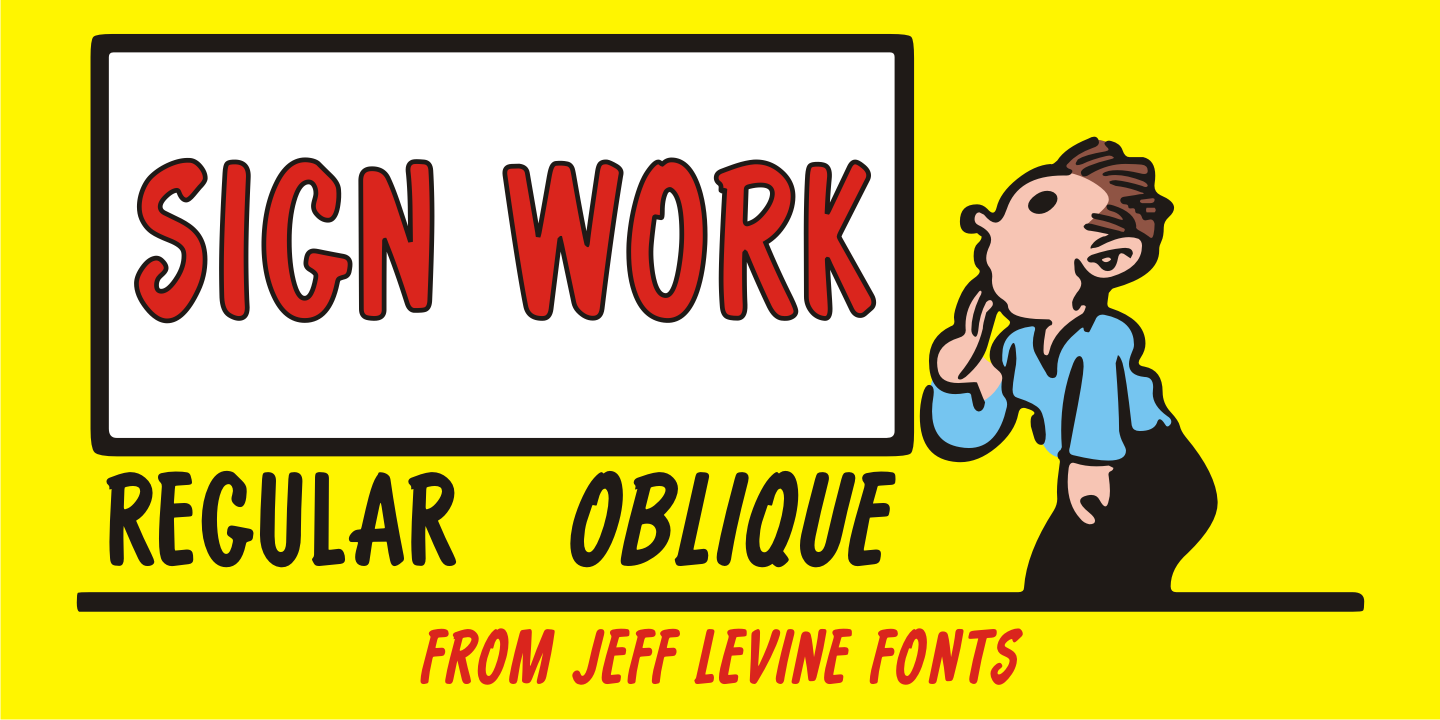
Sign Work JNL Font is ideal for traditional sign painting projects, vintage storefront signage, classic barbershop graphics, old-fashioned diner branding, retro automotive shop signs, heritage business identities, hand-painted billboard reproductions, nostalgic Main Street designs, authentic Americana graphics, and traditional craftsmanship celebrations. This authentic typeface excels in applications where honest sign painting tradition and skilled craftsmanship need to be communicated with genuine artisan character and time-honored reliability that honors the golden age of hand-lettered commercial signage.
What makes Sign Work JNL Font exciting is its extraordinary ability to capture the essence of traditional sign painting through its carefully crafted letterforms that preserve the subtle variations and honest imperfections that make hand-painted signs so charming and authentic. The font embodies the spirit of skilled craftsmanship and commercial artistry with its sturdy construction and workmanlike proportions that reflect the steady hand and practiced eye of master sign painters. Its authentically varied character details and artisan personality create an atmosphere of genuine craftsmanship that resonates with business owners and design enthusiasts who value traditional skills and honest workmanship.
The Sign Work JNL Font family typically includes Regular and Bold weights, each maintaining the signature hand-painted characteristics and authentic craftsmanship appeal. Some versions offer brush-style variants that enhance the painted aesthetic, distressed treatments that simulate weathered signage, and alternative character sets that provide realistic hand-lettering variations. The family may also include decorative elements, traditional sign painter's flourishes, and specialized commercial symbols designed for authentic business signage applications.
Whether you're creating traditional business identities, heritage signage systems, or authentic Americana designs, Sign Work JNL Font Free Download delivers the perfect artisan authenticity your craft-focused projects deserve. Its sign painting character and traditional styling make it an invaluable tool for small businesses, sign shops, and designers working in traditional signage, heritage branding, and authentic commercial graphics sectors where genuine craftsmanship and honest business tradition are essential for establishing trust and community connection.